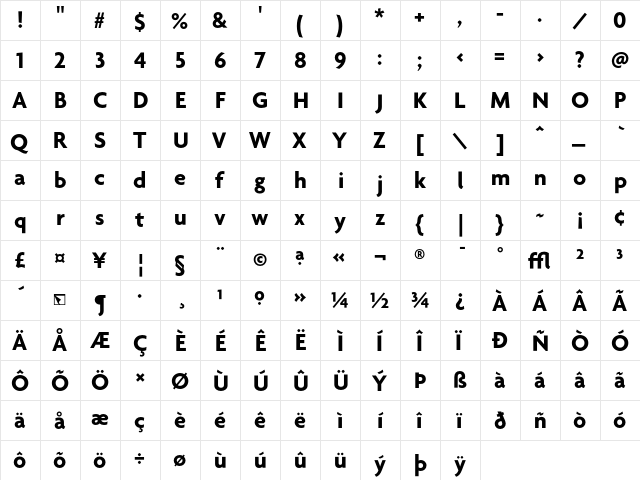
Agenda Bold
Design Context for Agenda Typeface
Agenda takes a measured approach to typography — its balanced proportions and neutral character make it a reliable workhorse for both digital and print work. Its bold stroke weight gives it real presence on the page.